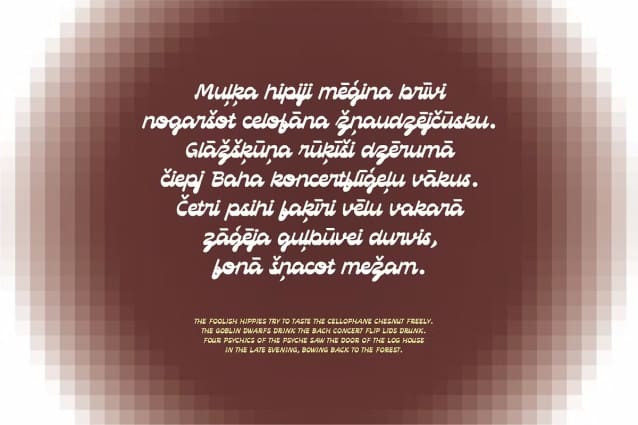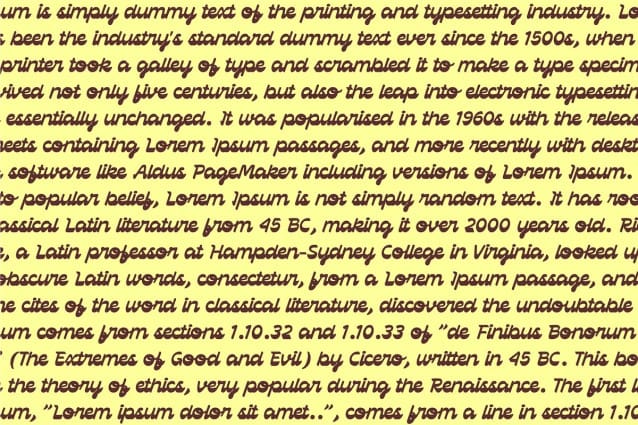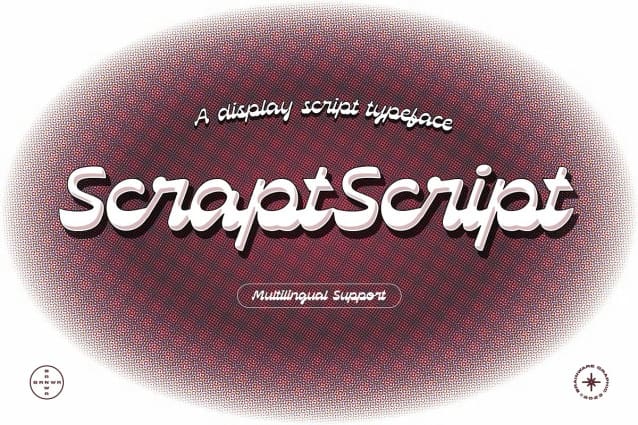
ScraptScript Font
Scraptscript Font is a modern display script font. simple form, nice reverse contrast in readability. Scraptscriptfont comes in single weight and webfont format. they were supported with Multilingual.